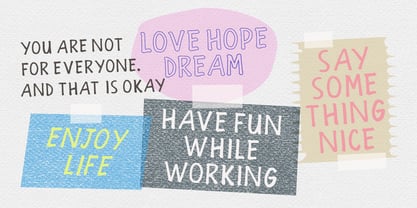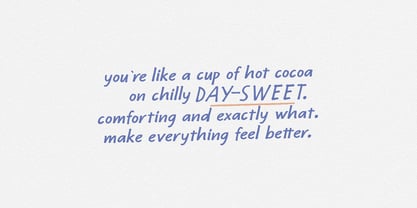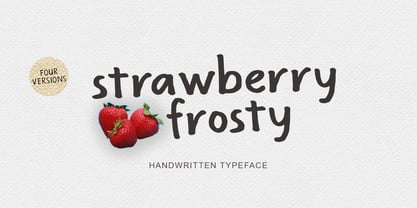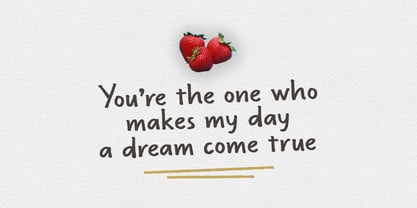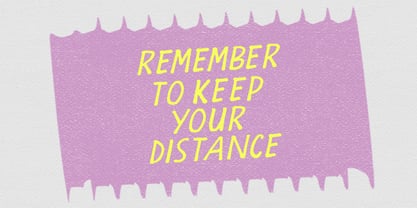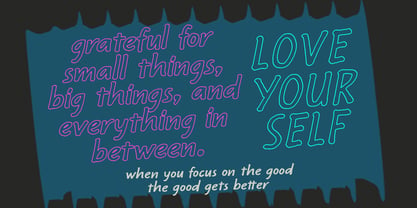
Strawberry Frosty
by Stripes Studio
The Strawberry Frosty Font Family was designed by Yur Lis and published by Stripes Studio. Strawberry Frosty contains 4 styles and family package options.
Strawberry Frosty is a playful and expressive handwritten brush font, crafted directly from my own handwriting. It brings a warm, personal touch to any design project with its natural flow and unique character.
This font comes in 4 versatile styles to suit a variety of creative needs:
• Normal – The original brush style with a smooth, hand-painted look.
• Normal Slant – A slightly italic version for a more dynamic feel.
• Outline Normal – A clean outline variant that retains the charm of the original strokes.
• Outline Slant – An outlined, slanted version for a fun and energetic vibe.
Perfect for:
• Product packaging (especially food & beverage)
• Invitations, greeting cards, and quotes
• Friendly, casual branding and logos
• Social media content, blog titles, and more!
With its authentic brush texture and hand-drawn personality, Strawberry Frosty adds a creative, heartfelt touch to every project.